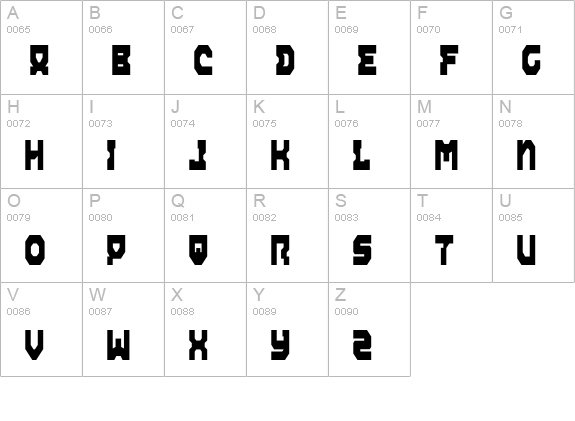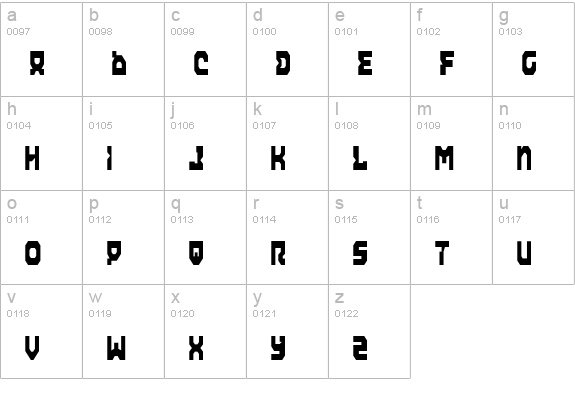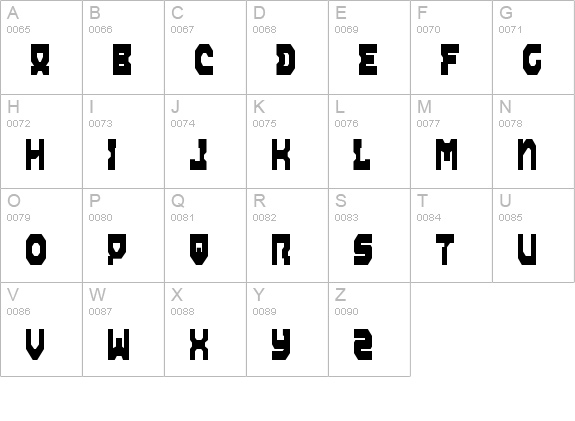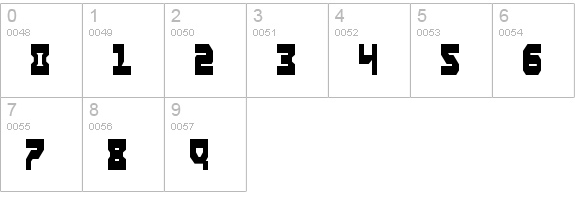
Airacobra Condensed is a distinctive, condensed-width variant in the Airacobra typeface family \xE2\x80\x94 well suited to design and typography projects.
Airacobra Condensed is a sleek and modern font that exudes sophistication and elegance. This condensed typeface features clean lines and sharp edges, making it perfect for various design projects where space is limited. Its versatility allows it to be used for both headings and body text, adding a touch of contemporary style to any composition. What sets Airacobra Condensed apart is that it is available for free download at FontsMarket.com. This means that you can easily access this high-quality font without having to spend a dime. Whether you are designing a website, creating a poster, or working on a branding project, Airacobra Condensed is a fantastic option that won't break the bank. Download Airacobra Condensed today from FontsMarket.com and elevate your designs with this stunning and versatile typeface.